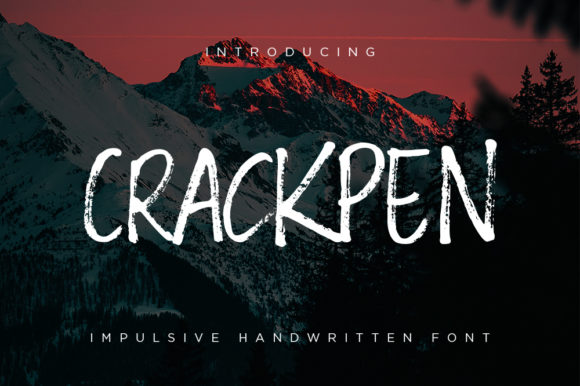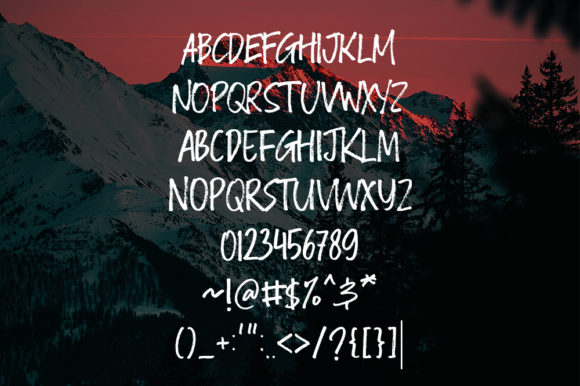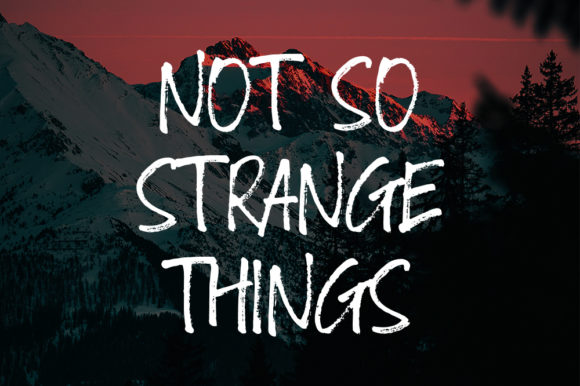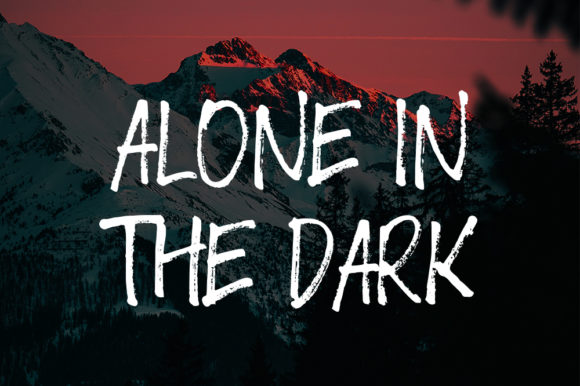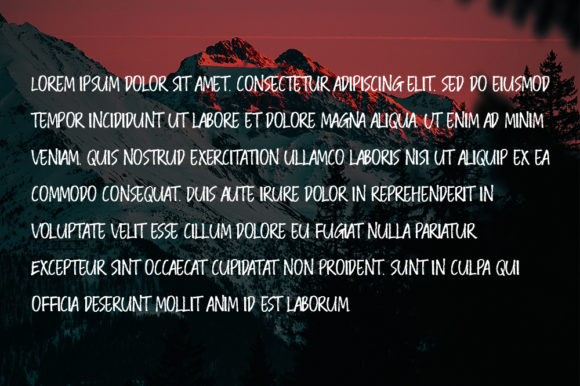
HomeScript FontsCrackpen Font Script Fonts Crackpen Font FacebookXPinterestWhatsApp Crackpen Font Poster 2 Crackpen Font Poster 3 Crackpen Font Poster 4 Crackpen Font Poster 5 About Crackpen Font Crackpen is an impulsive script with a raw feel. Get inspired by its modern, authentic look! DOWNLOAD ON CREATIVE FABRICAThis font is sold and delivered by Creative Fabrica. Font Canyon may earn a commission if you buy through this link. People also explored Winslet Font Great Month Font Hello Caramel Font Chiang Mai Font Omelette Font Ellando Font Kilatand Font Capitana Unicorn Star Monogram Font 347 0 TagsCrackpen Font Previous articleSherly Pung FontNext articleCharism Font LEAVE A REPLY Cancel reply Comment: Please enter your comment! Name:* Please enter your name here Email:* You have entered an incorrect email address! Please enter your email address here Website: Save my name, email, and website in this browser for the next time I comment. Personal Use Free Angelia Personal Use Free Read more about this font Tanpax Personal Use Free Read more about this font Butter Belly Personal Use Free Read more about this font Sehat Selalu Personal Use Free Read more about this font BLOG Elegant Wedding Invitation Fonts – Handwritten & Script Fonts Elegant Wedding Invitation Fonts Your wedding day is one of the most important moments of your life, and every detail matters—including your invitation design. Our... Top 10 Handwritten Fonts That Elevate Your Designs Free vs Paid Fonts: Why Investing in Premium Fonts Is Worth It Transform Your Website: Elevate Your Typography with 7 Best Web Font Generators